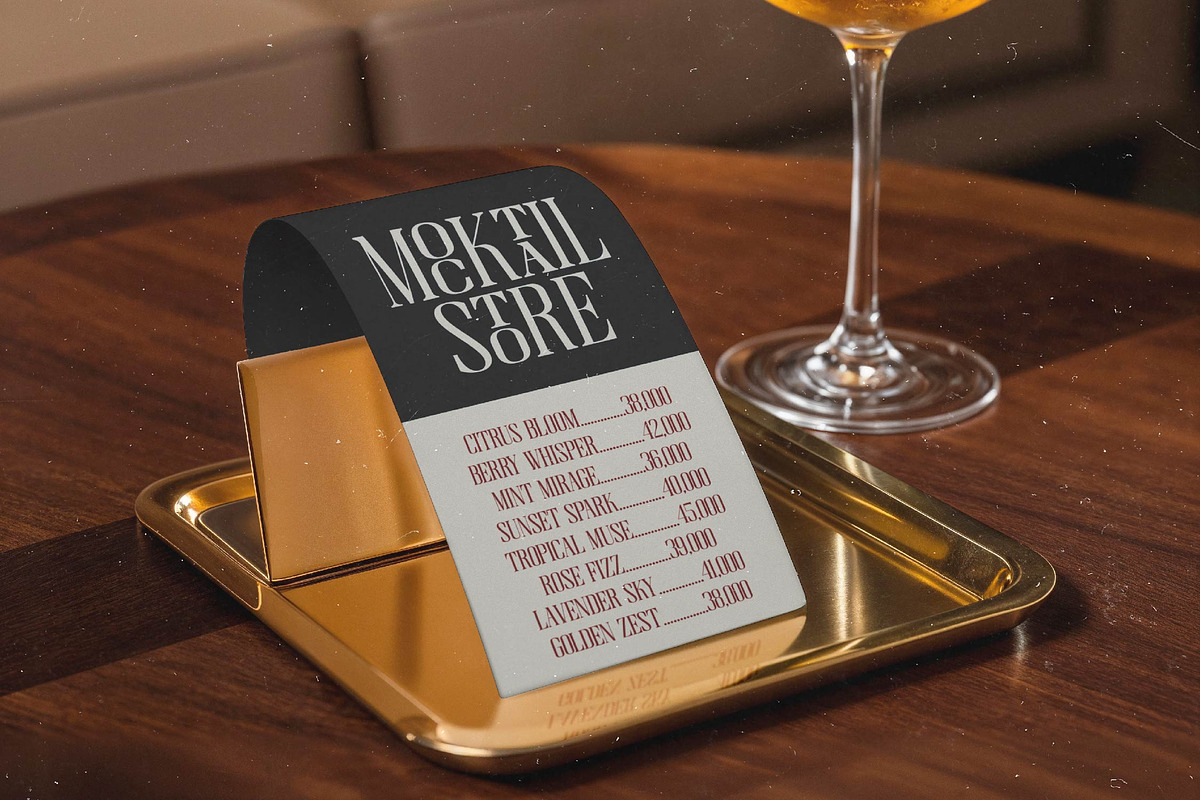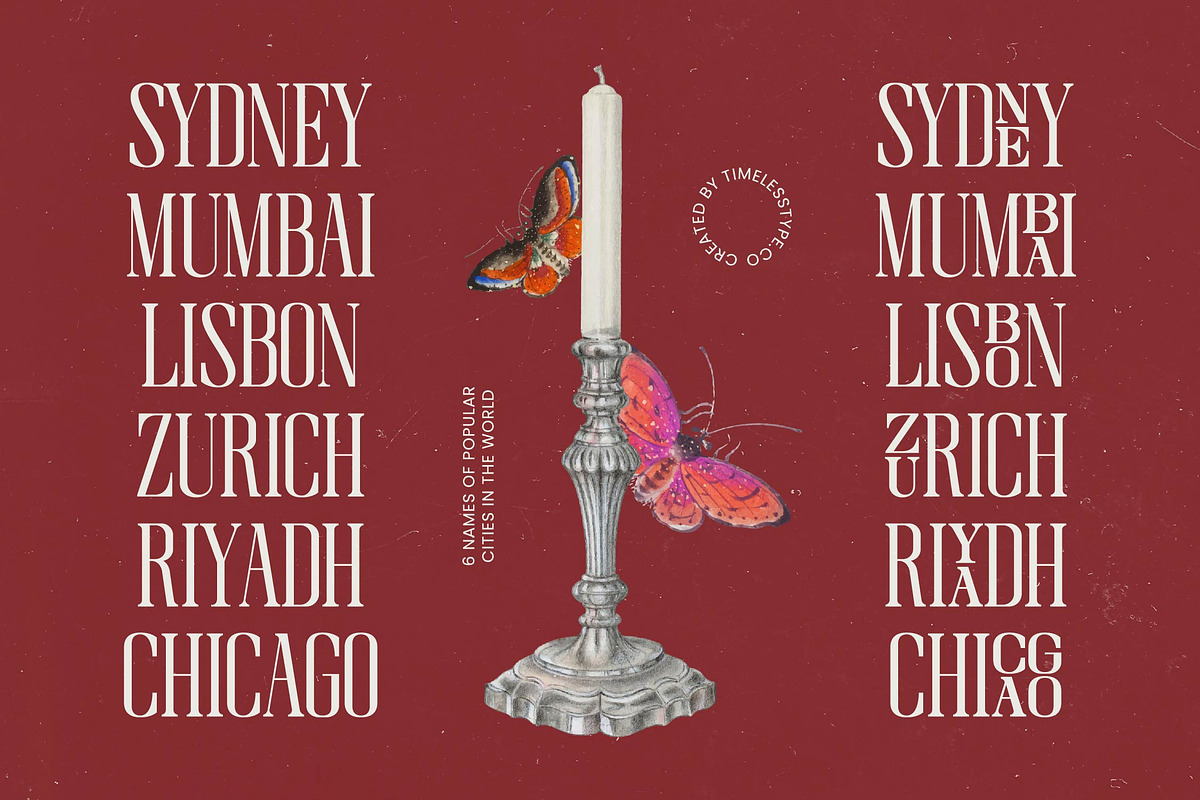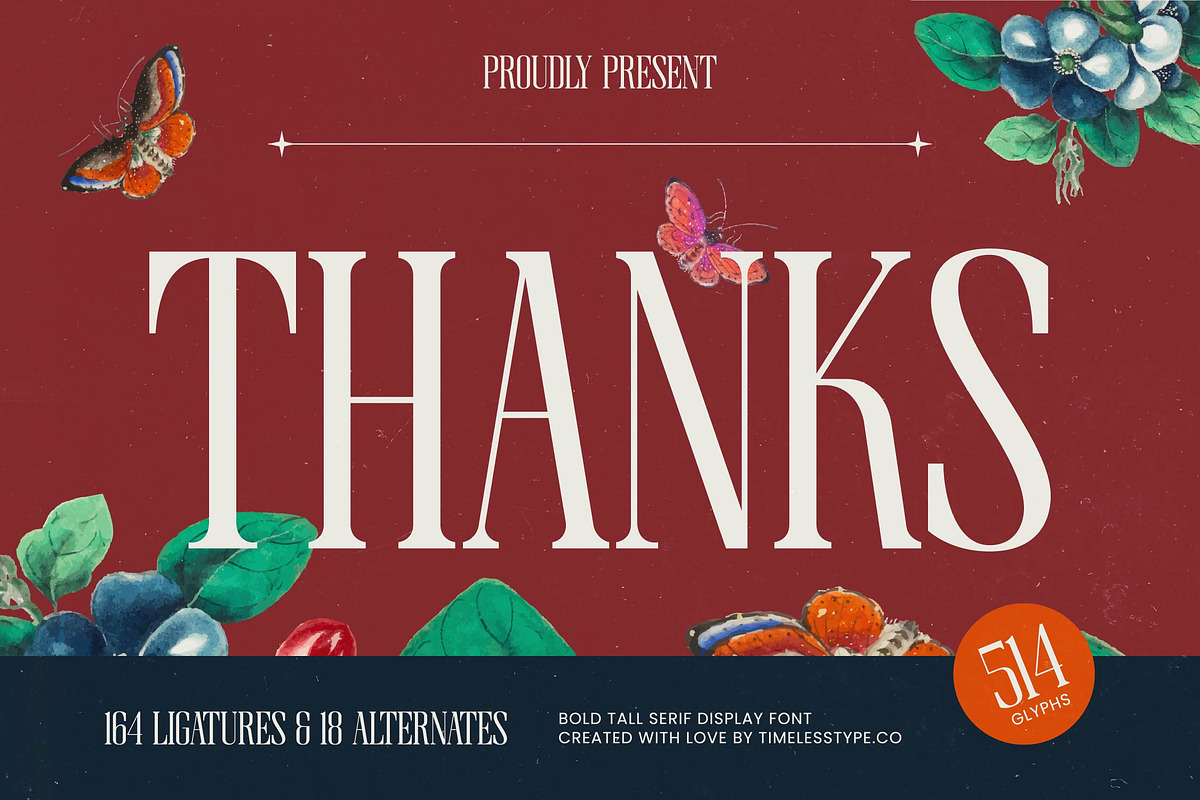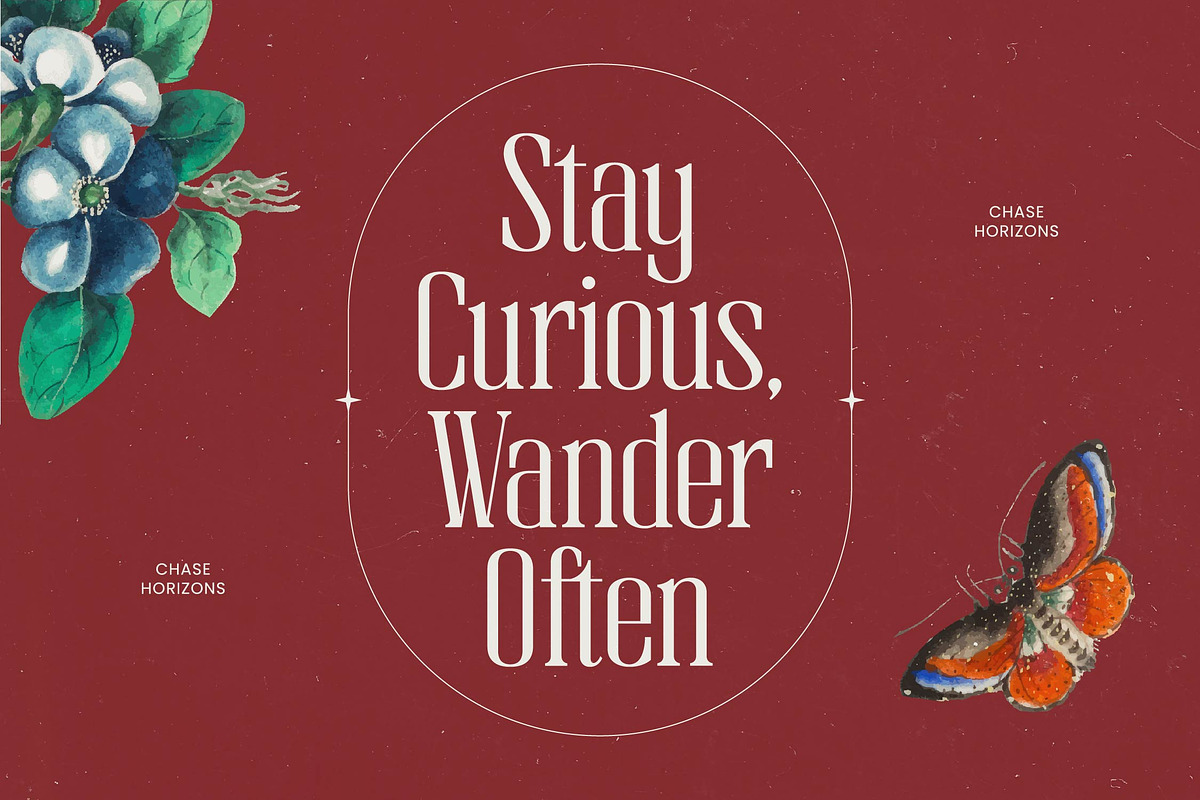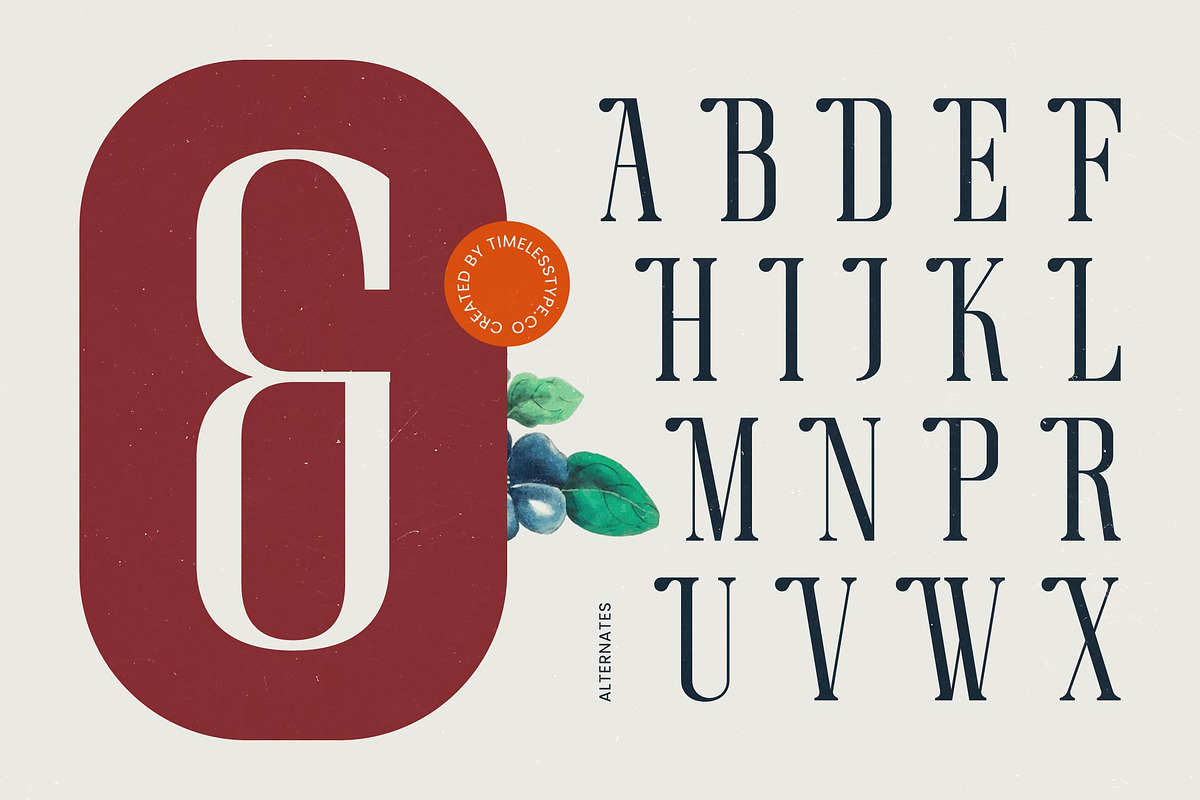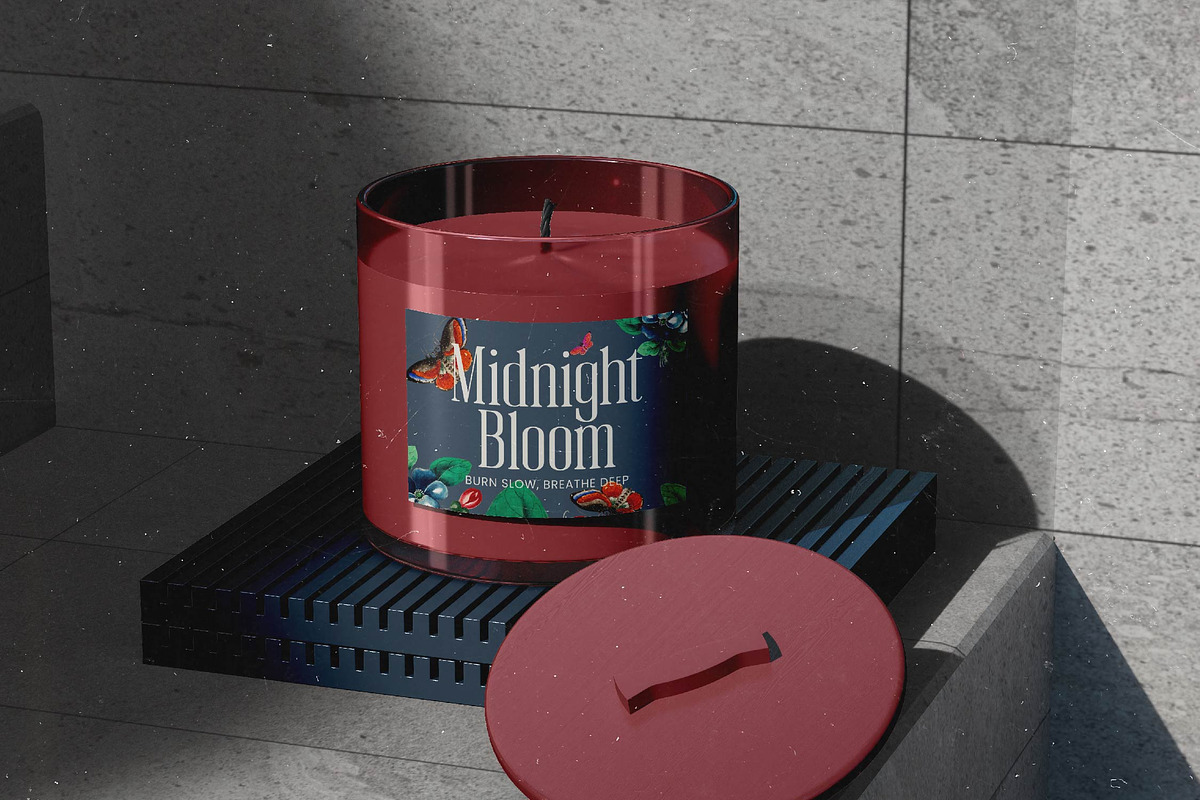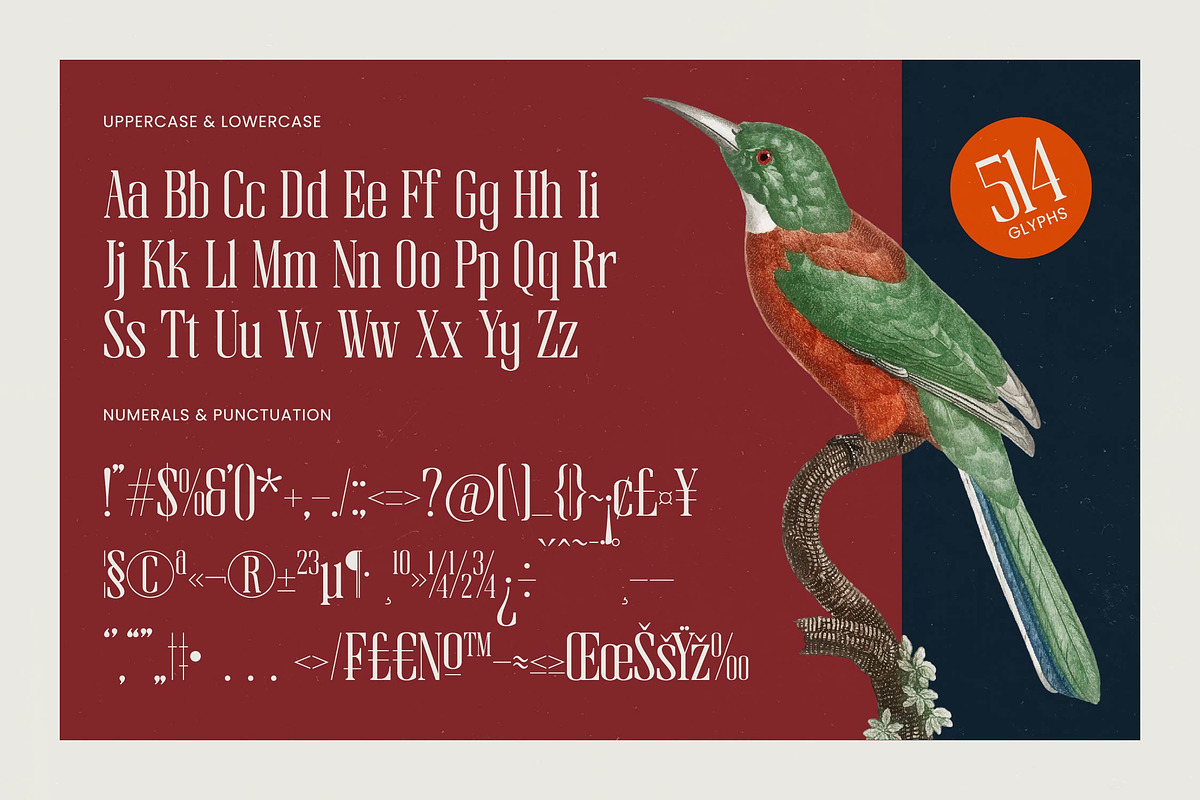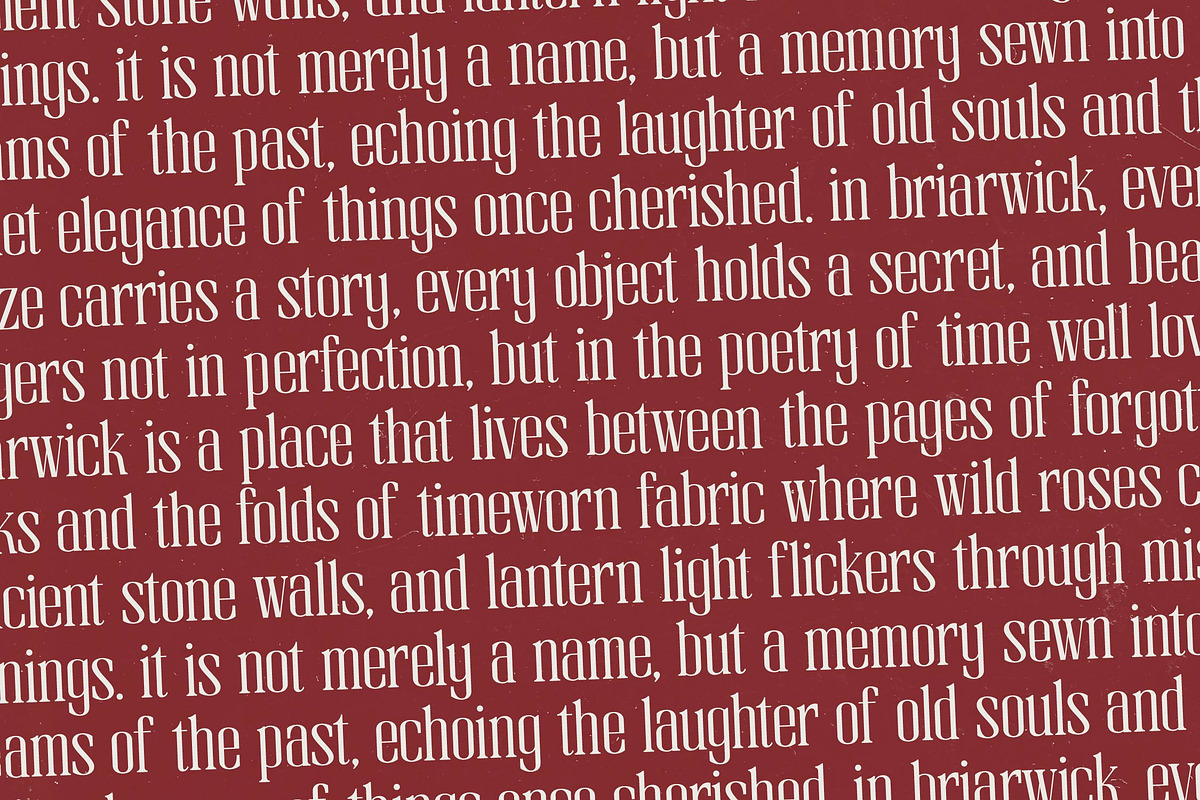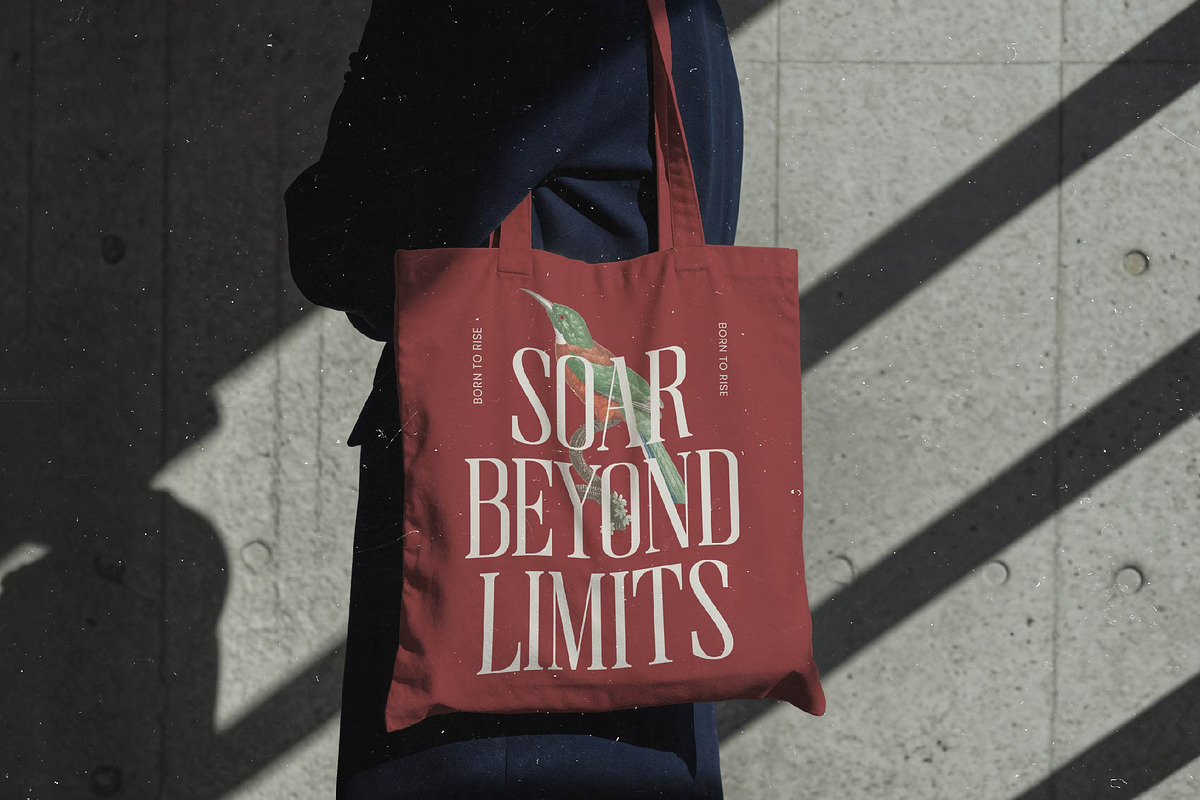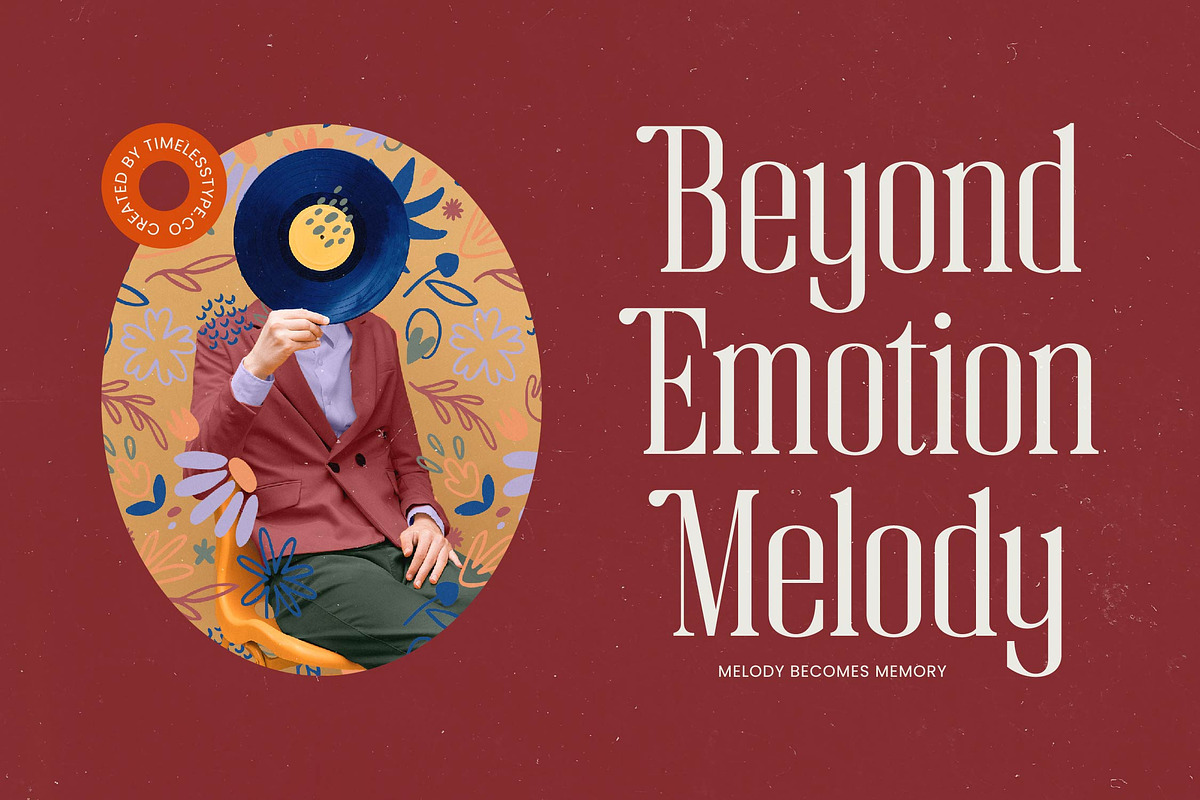
Broswick Bold Tall Display Serif
Elevate your creative vision with Broswick, a masterfully crafted typeface that balances grandeur with meticulous detail. This font captures the essence of timeless elegance, making it an indispensable tool for designers seeking to make a lasting impression.
Drawing inspiration from classic botanical illustrations and the golden age of editorial layouts, this typeface evokes a sense of natural beauty and structured sophistication. It feels like a bridge between the curated archives of history and the sharp, clean lines of contemporary aesthetic demands.
With its commanding presence, this modern serif display is engineered for luxury typography and high-end aesthetics. The high-contrast serif strokes provide a sharp, clean look that ensures an editorial font feel with maximum branding impact across any medium.
Perfect for the current modern serif trend, this typeface aligns with the shift towards editorial display fonts that prioritize personality. It offers character-driven typography that stands out in a crowded digital landscape, catering to a market that values unique, high-quality design assets.
This versatile typeface is the ultimate choice for high-impact logo design and comprehensive branding projects. From sophisticated editorial layouts and premium packaging to romantic wedding stationery and high-end fashion lookbooks, it adapts seamlessly to various creative needs.
Beyond its striking appearance, the font is packed with functional depth, including 164 unique ligatures and 18 character alternates to customize your text. It features full multilingual support and a wide array of international characters, totaling 514 glyphs for global design flexibility.
- Ligature 164 Alternate 18